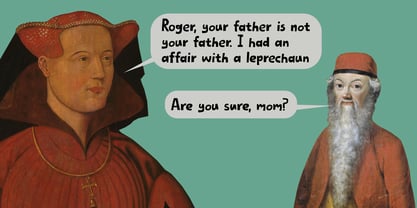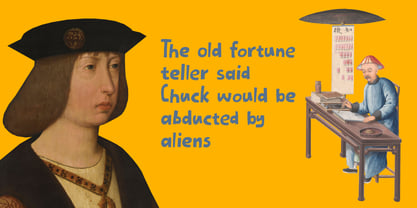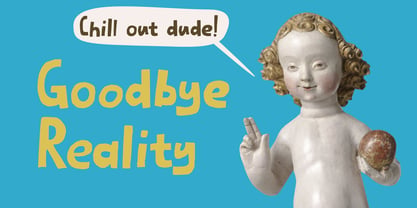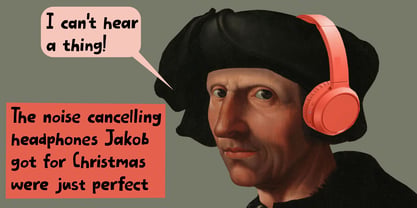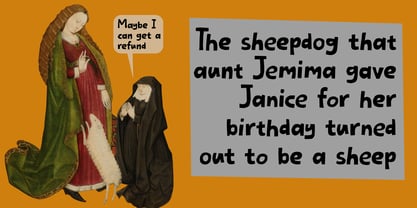
Goodbye Reality Pro
Die Schriftfamilie Goodbye Reality Pro wurde von David Kerkhoff entworfen und von Hanoded veröffentlicht. Goodbye Reality Pro enthält 2 Stile und Familienpaketoptionen. Mehr über diese Familie
I am not sure about you, but I sometimes think that reason and sanity are obsolete concepts these days, but maybe I am making too much of it and things will turn out to be ok. Fingers crossed!
Goodbye Reality is a font I made by hand (fact checked!), using a roller ball pen and rough paper (I have proof!), while enjoying several cups of home-made, organic latte (with real milk) and some biscotti my wife baked (I have witnesses…).
Comes with extensive language support and a set of alternates for the lower case glyphs.
Hanoded is run by Dutchman David Kerkhoff. His fonts are a mishmash of styles, as he just creates whatever pops into his head. You will find a lot of brush fonts in his collection, as his favourite tools are brushes and Chinese ink, with cartoon style fonts and script fonts complementing his repertoire. Aside from making fonts, David occasionally guides tours in far-flung places, renovates his '30's house and tries reasoning with his wife and (teenage) kids. Not an easy task!